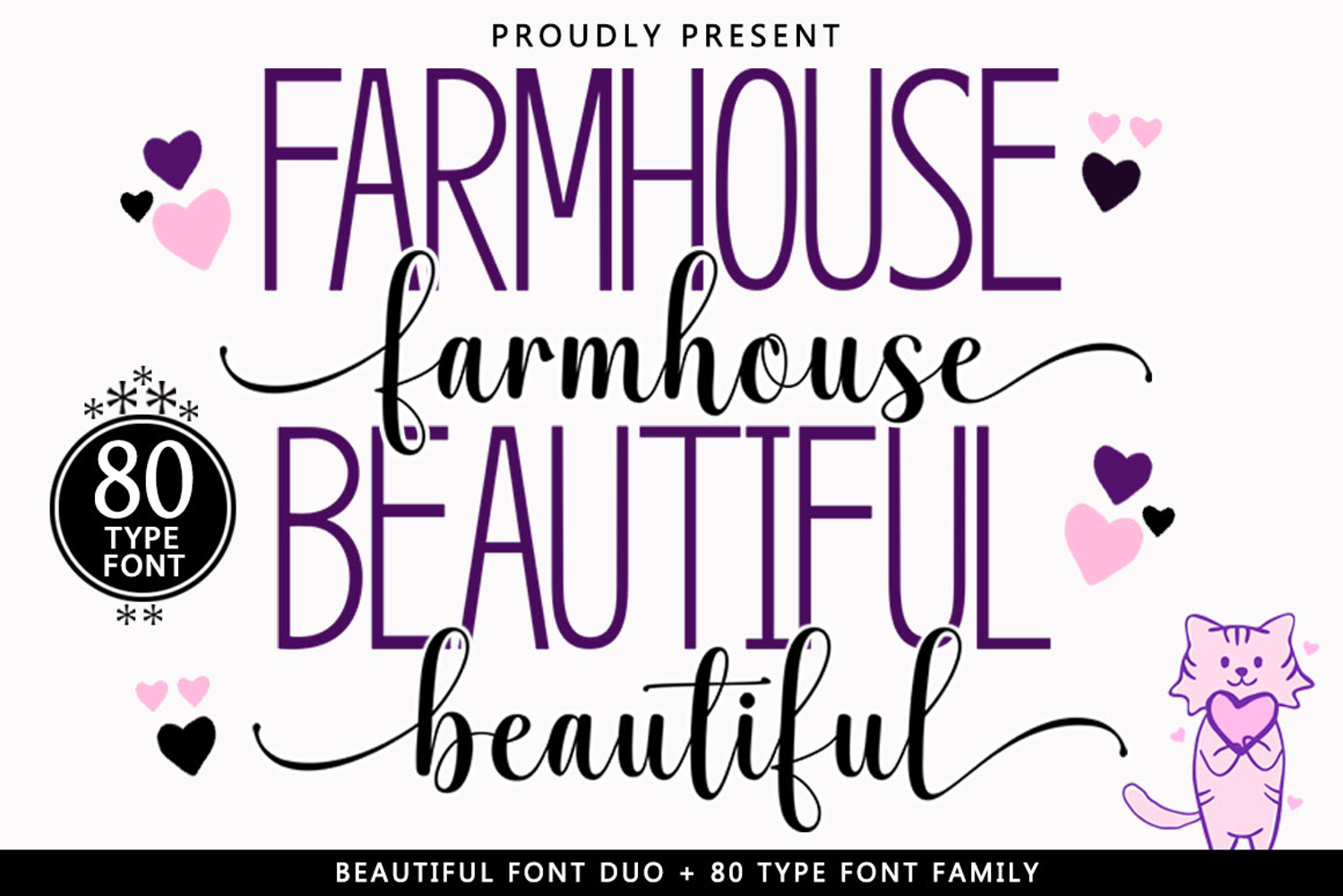
Farmhouse Beautiful - Font Duo In 80 Type Font Family
Introducing the Farmhouse Beautiful Font Duo Family Typeface, a versatile collection of 80 beautifully designed typefaces with an elegant and modern touch.
The Farmhouse Beautiful Font Duo stands out with its sleek, clean, feminine, sensual, and glamorous character. Its graceful letter connections, smooth curves, and stylish alternates make it both easy to read and visually stunning.
These fonts create a harmonious and visually appealing look, perfect for projects related to weddings, invitations, love themes, or feminine branding. The overall design is warm and accessible, with a modern yet timeless appeal.